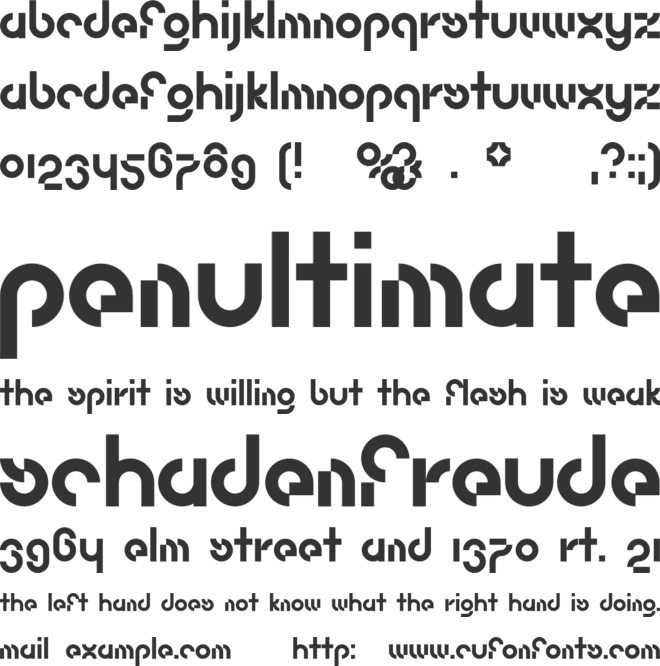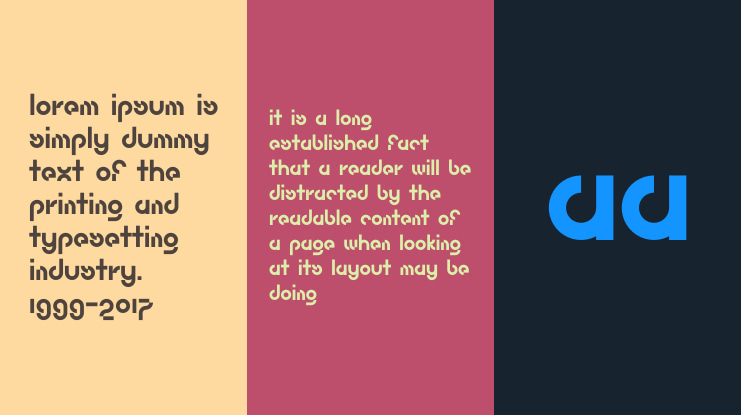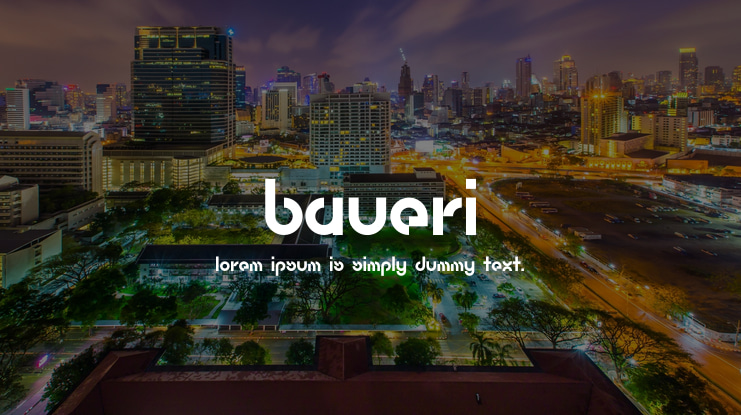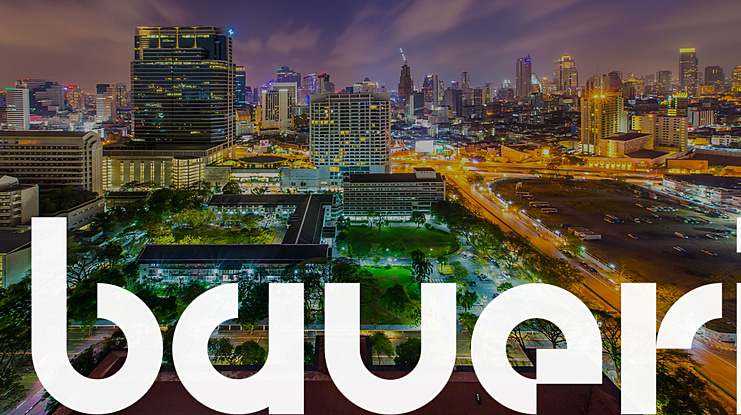
Baueri Font
This display font is a free modern stylish font made for designers, a strong and elegant font can enhance project quality. Baueri is perfect for design, logos, social media, branding, advertising, product design, film, quotes, product packaging, headers, posters, merchandise, and other designs.